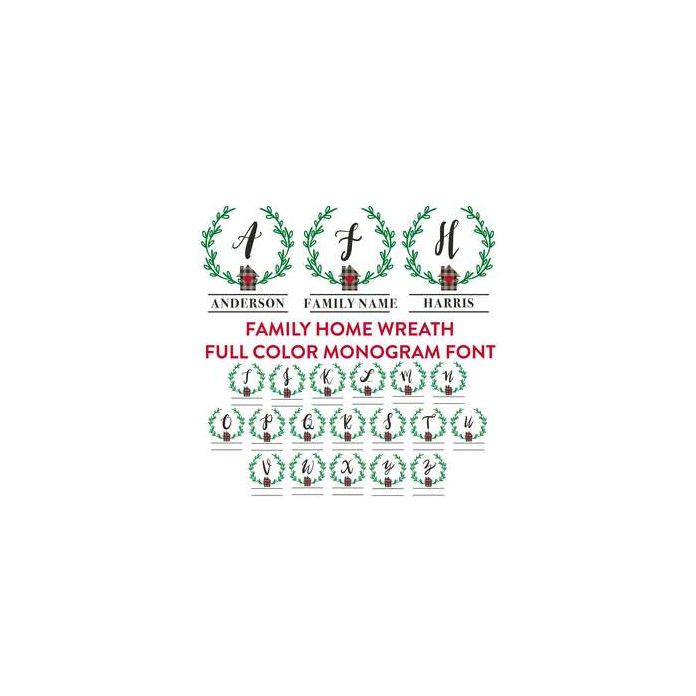
family home full color monogram font
This full color otf font comes with both uppercase and lowercase letters that are hand drawn. Customize with your family surname.